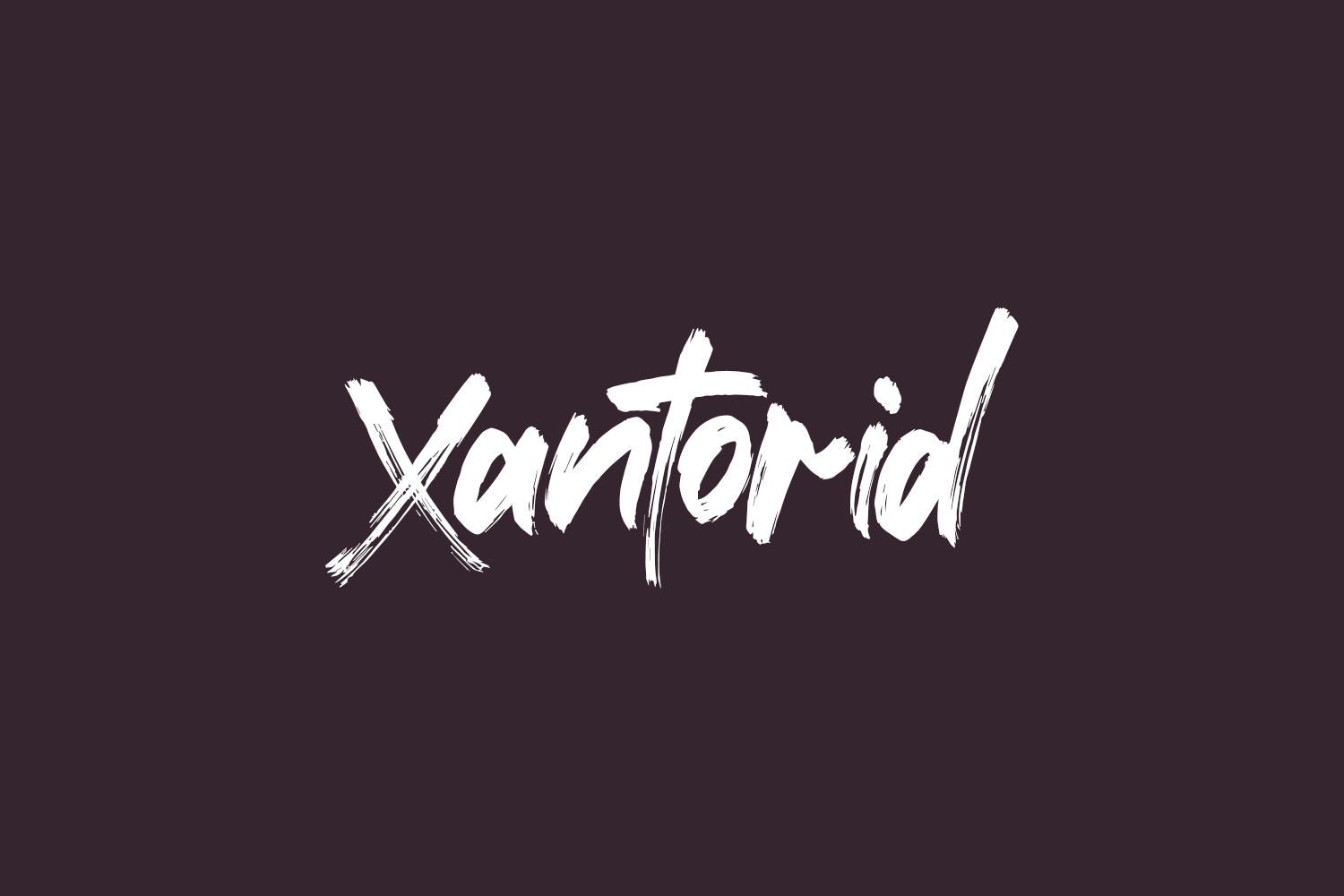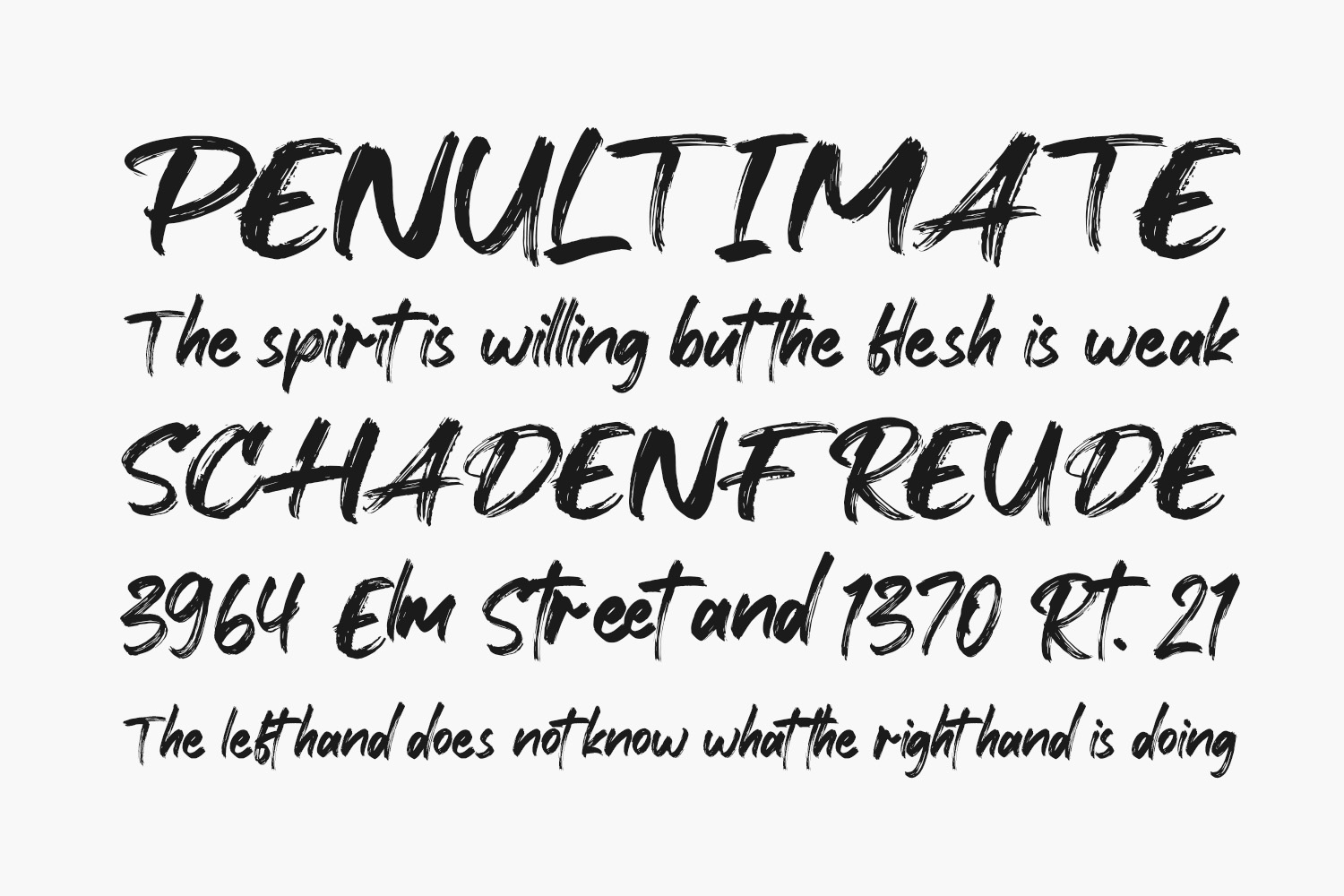
Xantorid Free Font Family is a cool, rough styled display font. Add this font to each of your urban design ideas and they will come alive. Xantorid Free Font Family was designed by Letterena Studios and is free for personal use only. Please purchase the full version for commercial use.